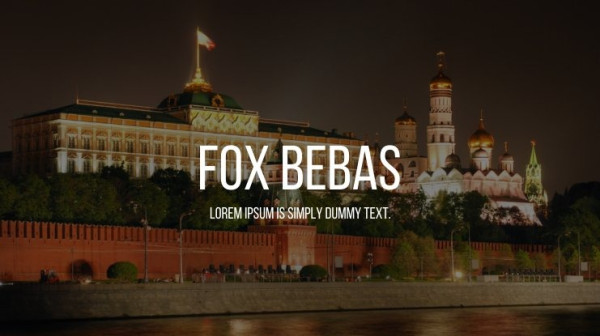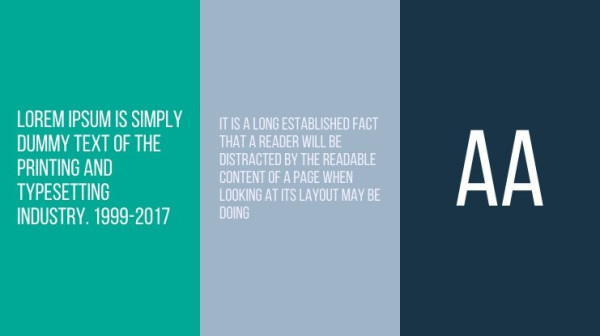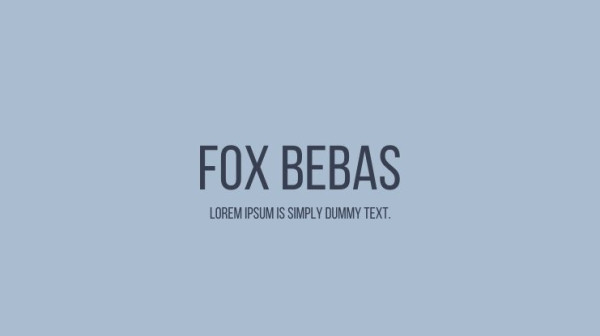
Fox Bebas Font, is a sans serif stunning when combined or separately. This sans serif font style is legible and stunningly designed.
Fox Bebas Font
| Designer Name: | Ryoichi Tsunekawa |
| Classification: | Sans Serif Fonts, Style / Aesthetic Fonts |